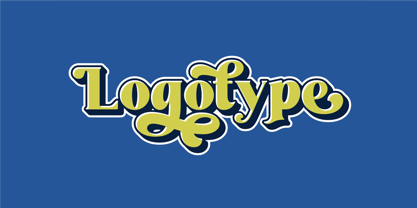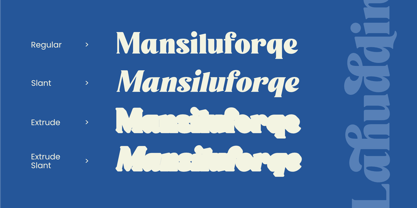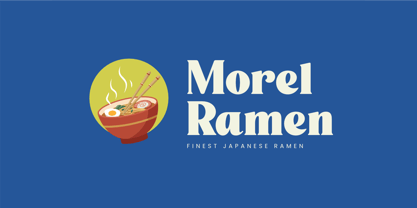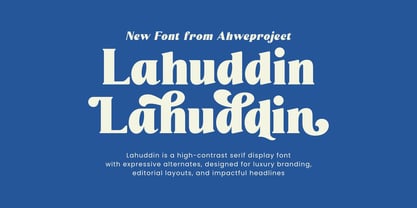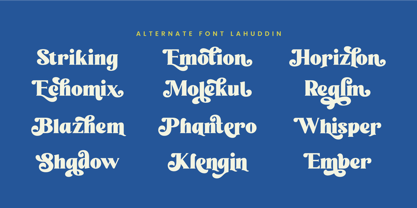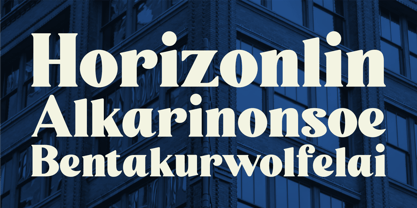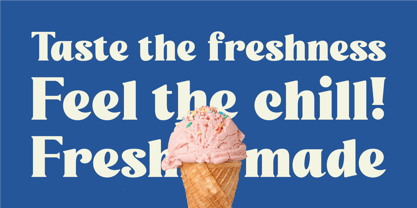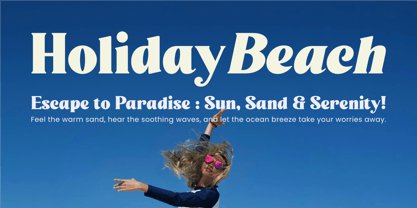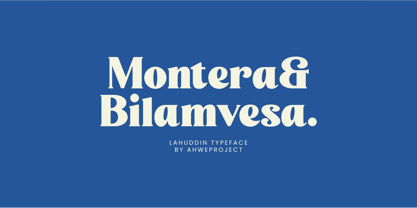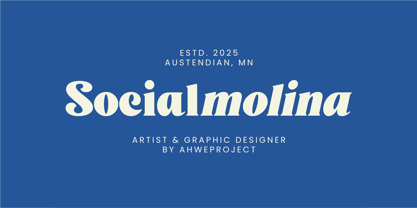
Lahuddin
The Lahuddin Font Family was designed by Dida Ahluddin and published by ahweproject. Lahuddin contains 4 styles and family package options. More about this family
Lahuddin is a high-contrast serif display font with expressive alternates that bring both elegance and boldness to your designs. Perfect for luxury branding, editorial layouts, standout headlines, logos, posters, and premium packaging. With a design that blends classic charm and modern flair, Lahuddin delivers stunning typography for any creative project. Features: - Uppercase & lowercase - Numbers and punctuation - Multilingual - Alternates - PUA encoded We strongly recommend using applications that support Opentype Features and Glyphs panels such as Adobe Apps and Corel Draw. So you can see and access all the variations of Glyphs. Happy Design!